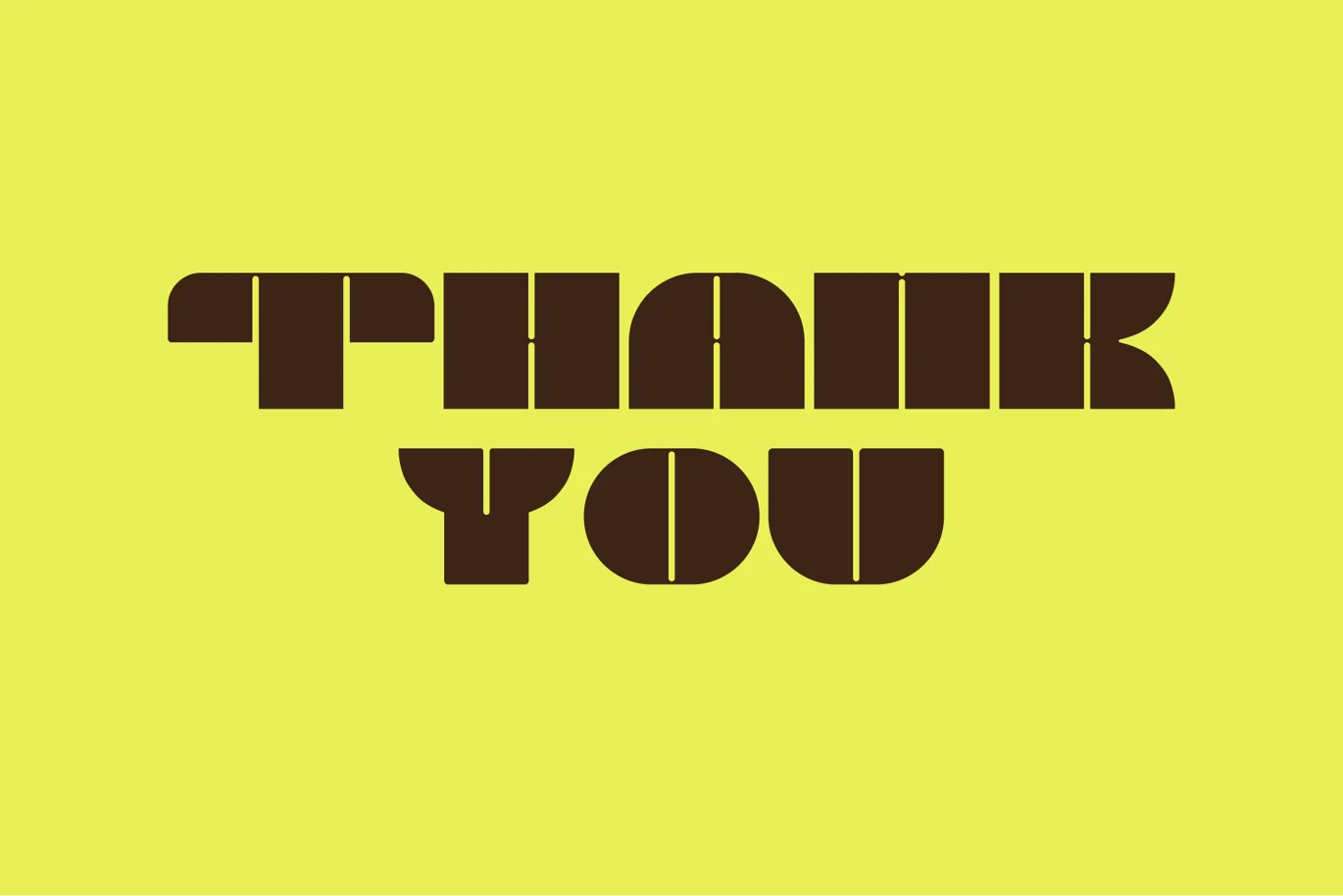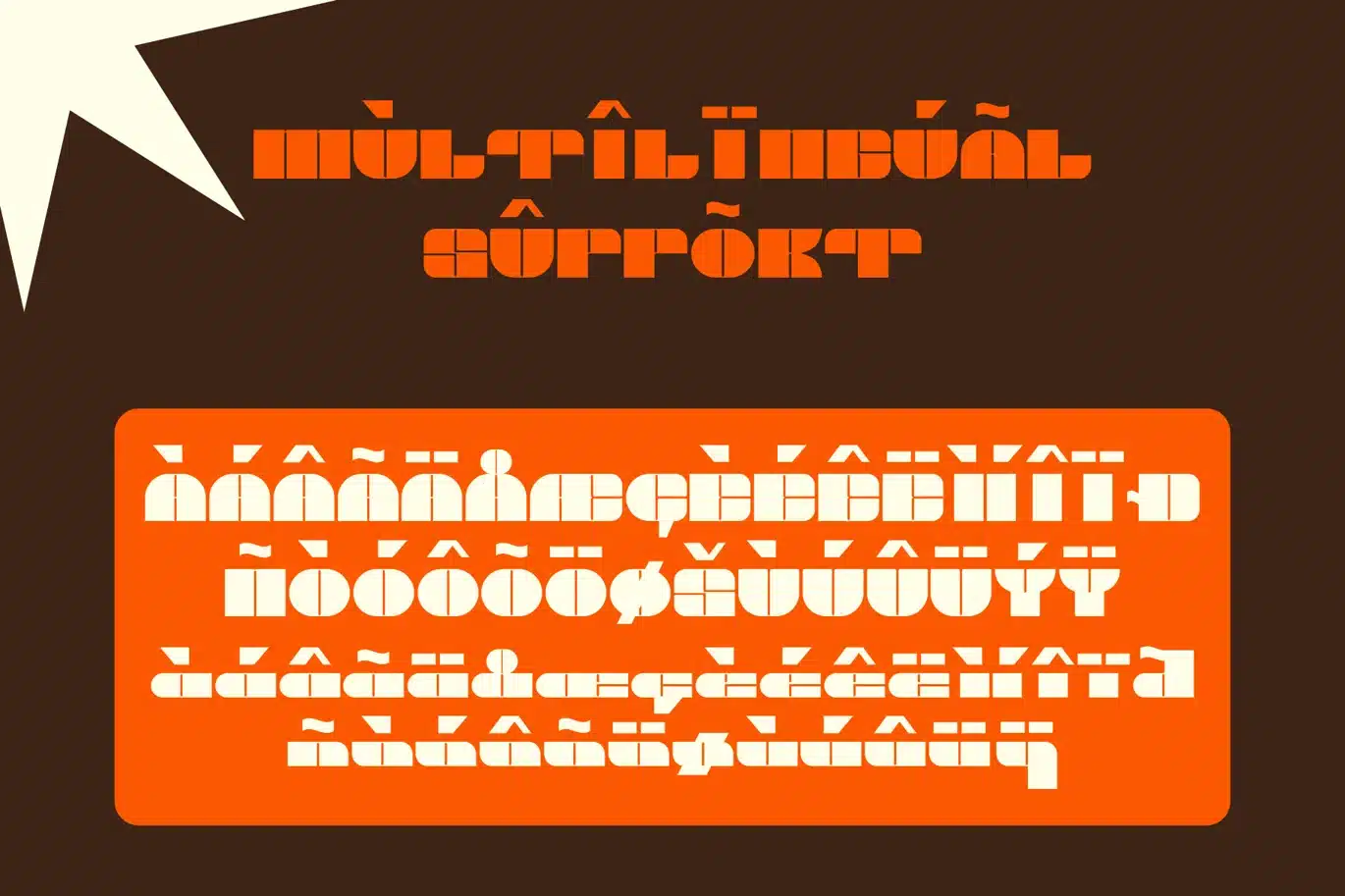
Gelraw – Bold Display Font
Gelraw is a bold display typeface designed to bring power and clarity to modern typography. Its strong letterforms and solid structure make it ideal for headlines, branding, posters, and any design that needs a bold visual presence.